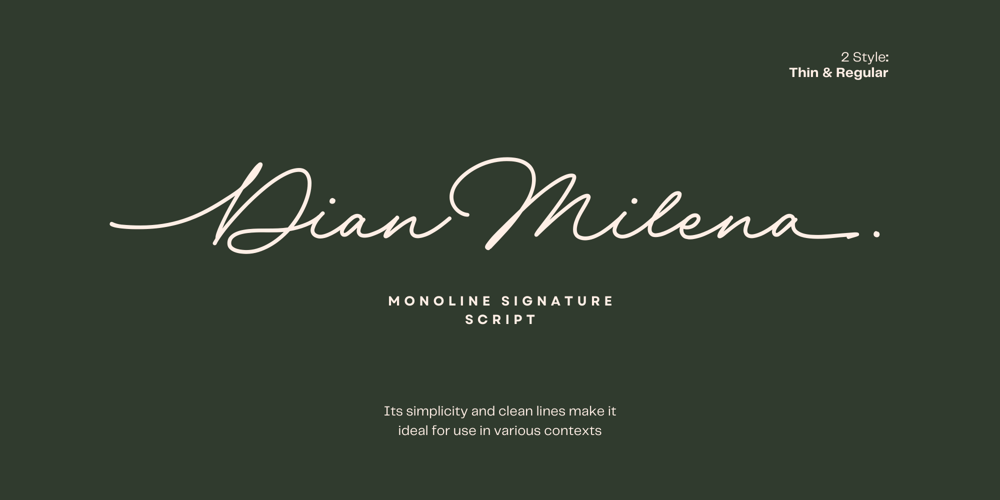
Dian Milena Font Family was designed by Hermansyah and published by Get Studio. Dian Milena contains 2 styles and family package options. Dian Milena – Signature Script The latest monoline signature script font features smooth curves, clean lines, and a short ascender. Additionally, as part of the font family, it includes thin and regular variations. The design of this script emphasizes an elegant and modern appearance, making it suitable for creating stylish and clean signatures.The consistent stroke width provides a modern and minimalist feel, while the short ascender adds a touch of uniqueness.The thin variant offers a light and delicate nuance, while the regular version provides optimal clarity and readability.Whether used for personal signatures or professional branding, this font family offers a harmonious balance between simplicity and elegance, making it a versatile choice for various applications.